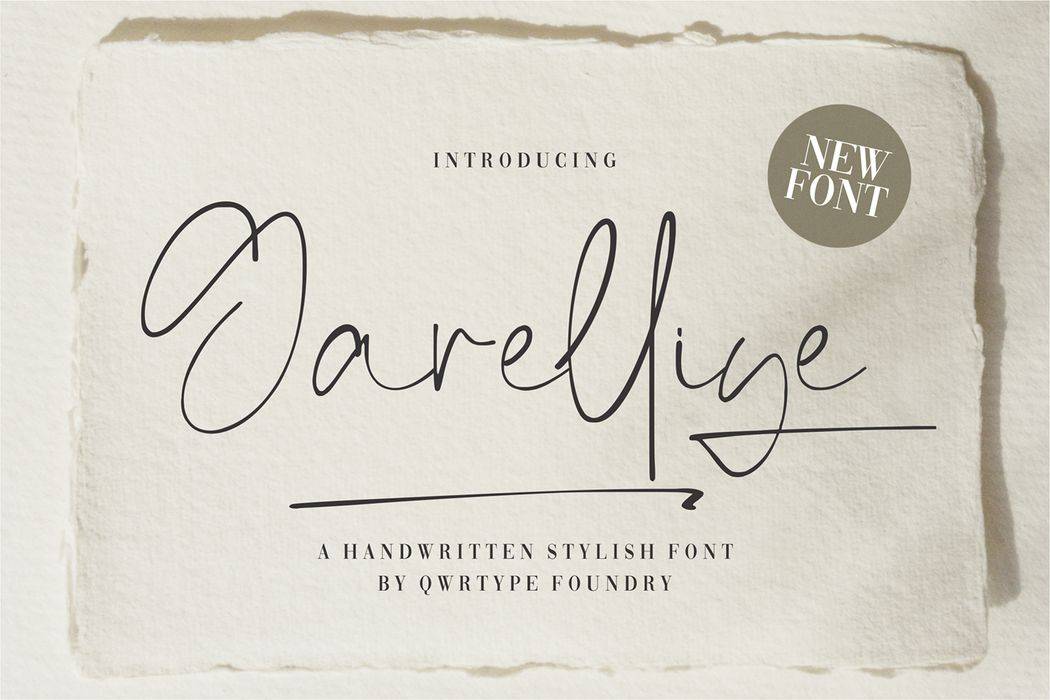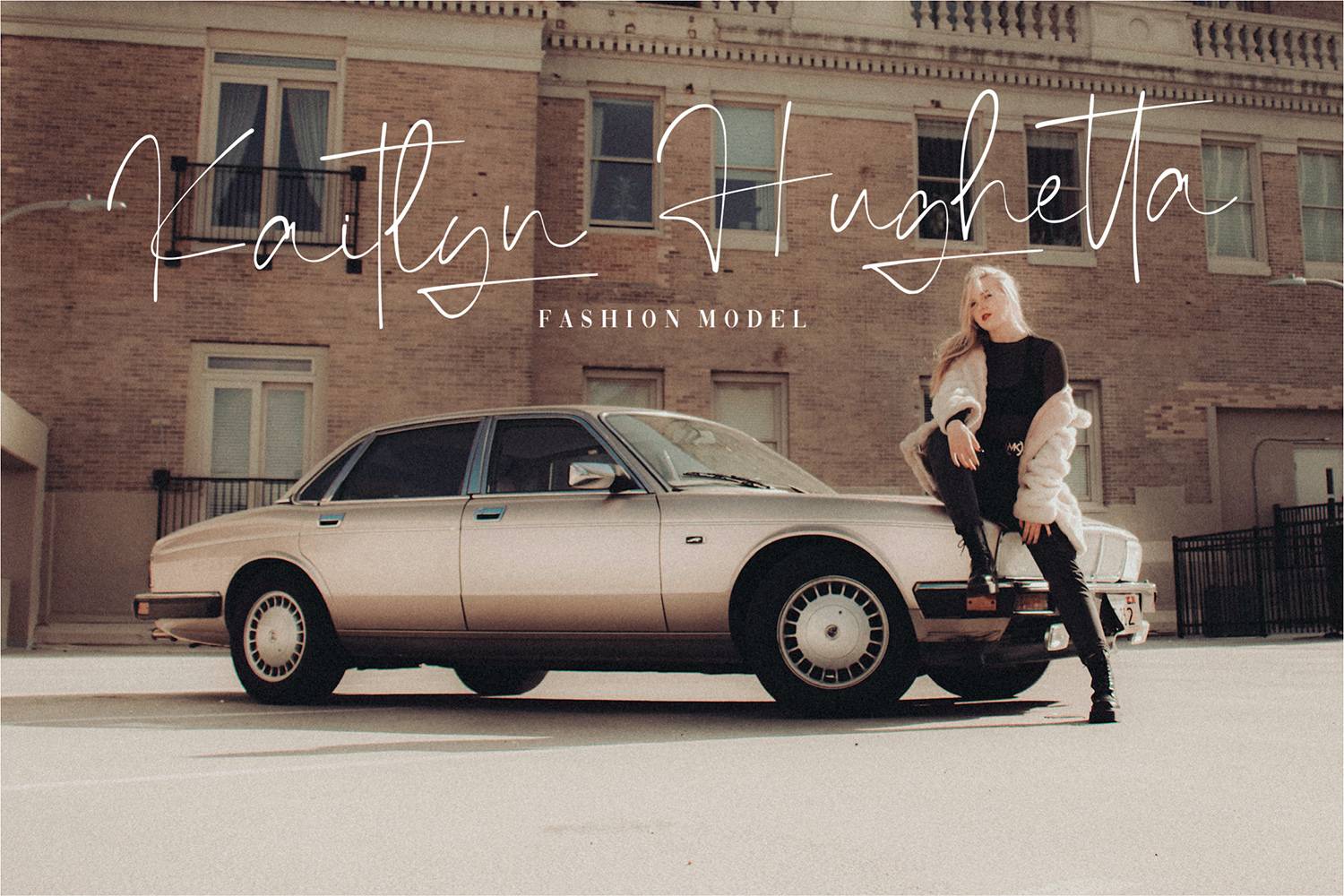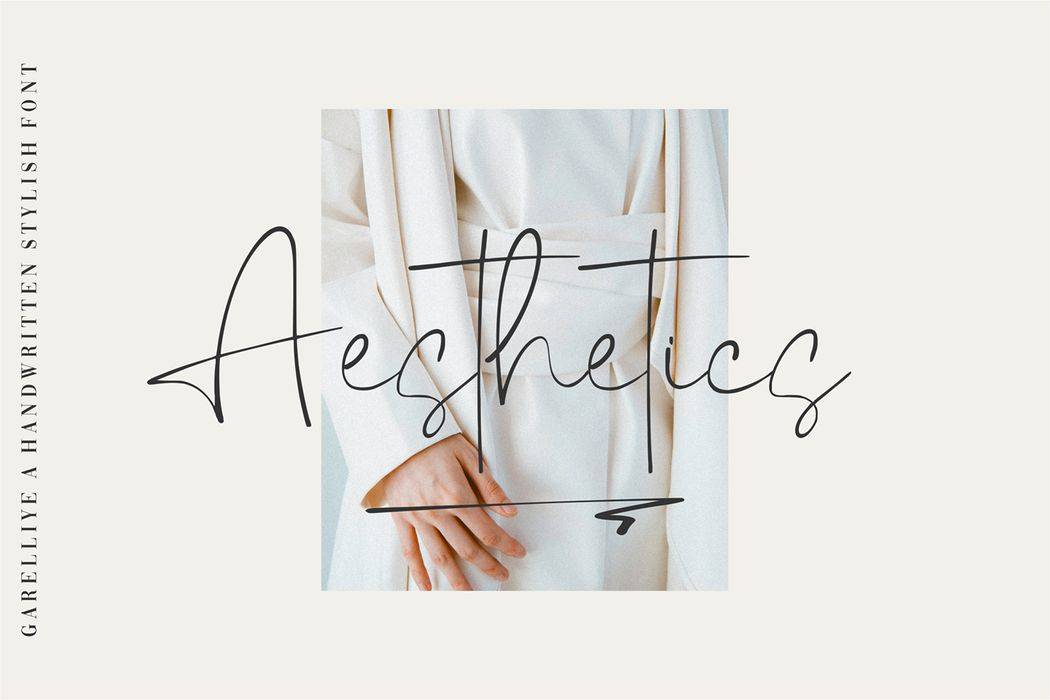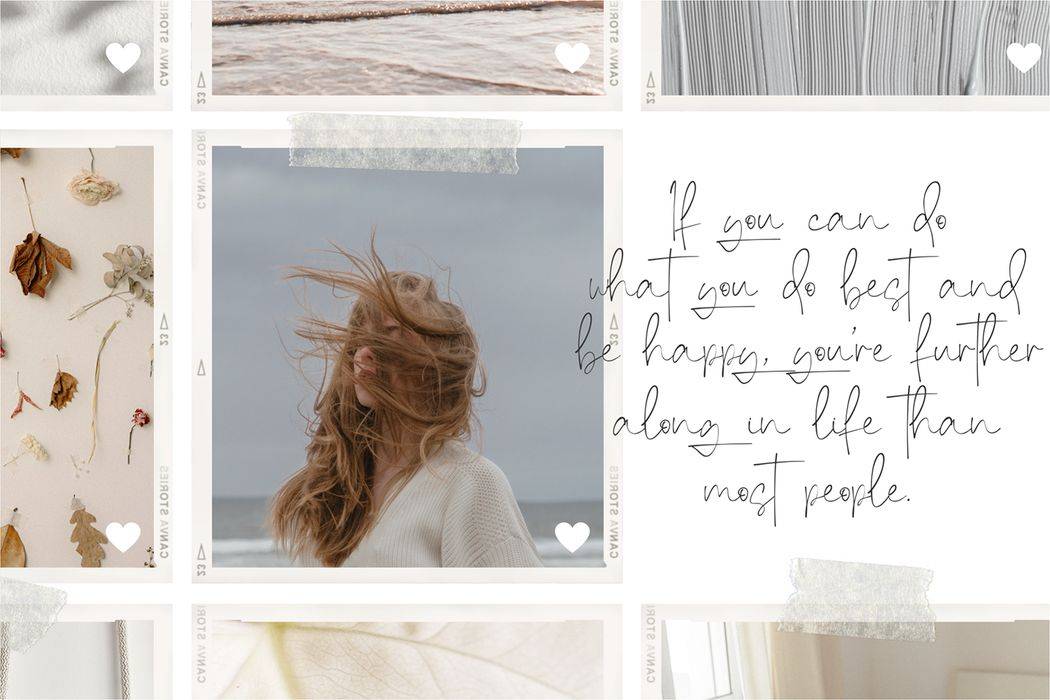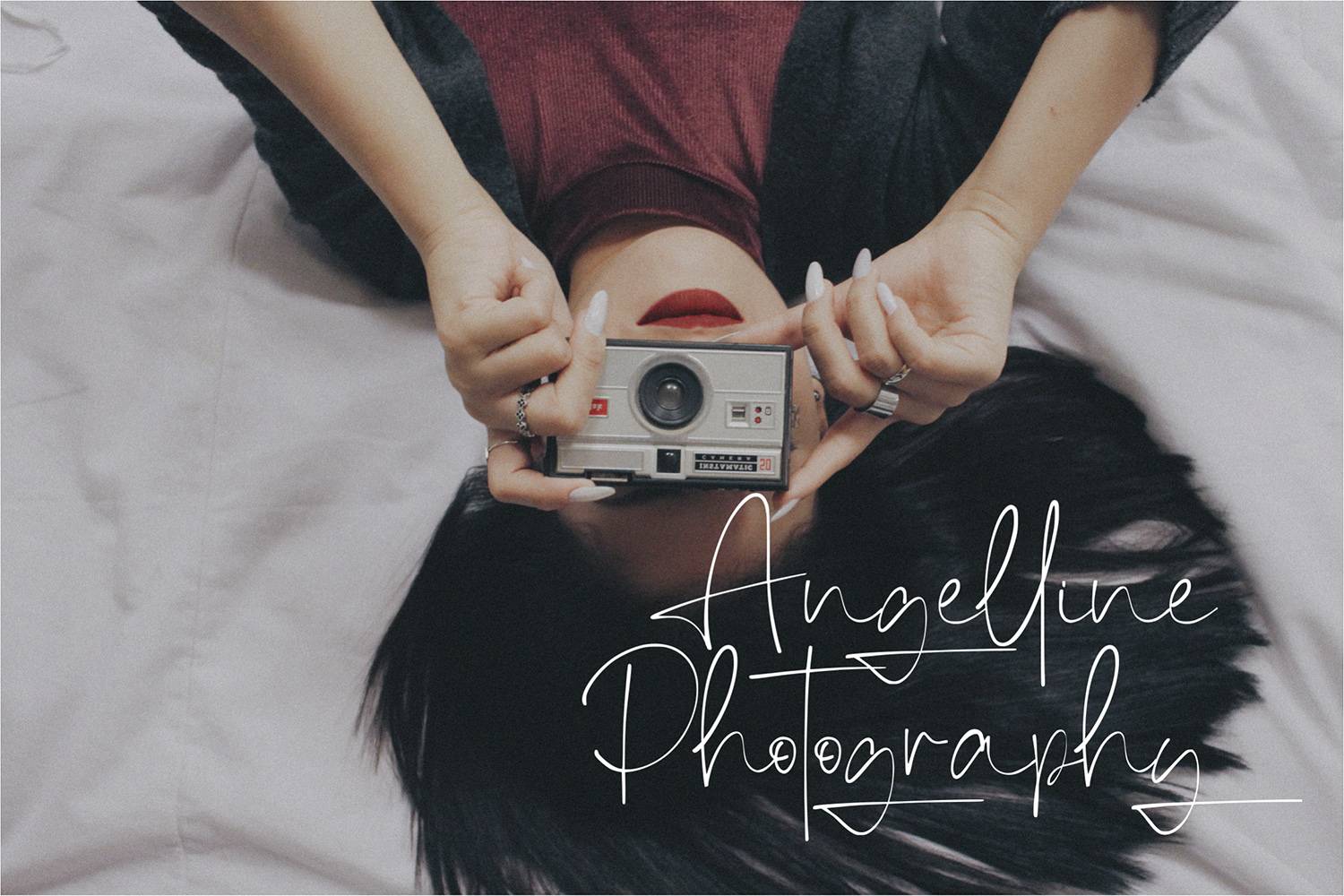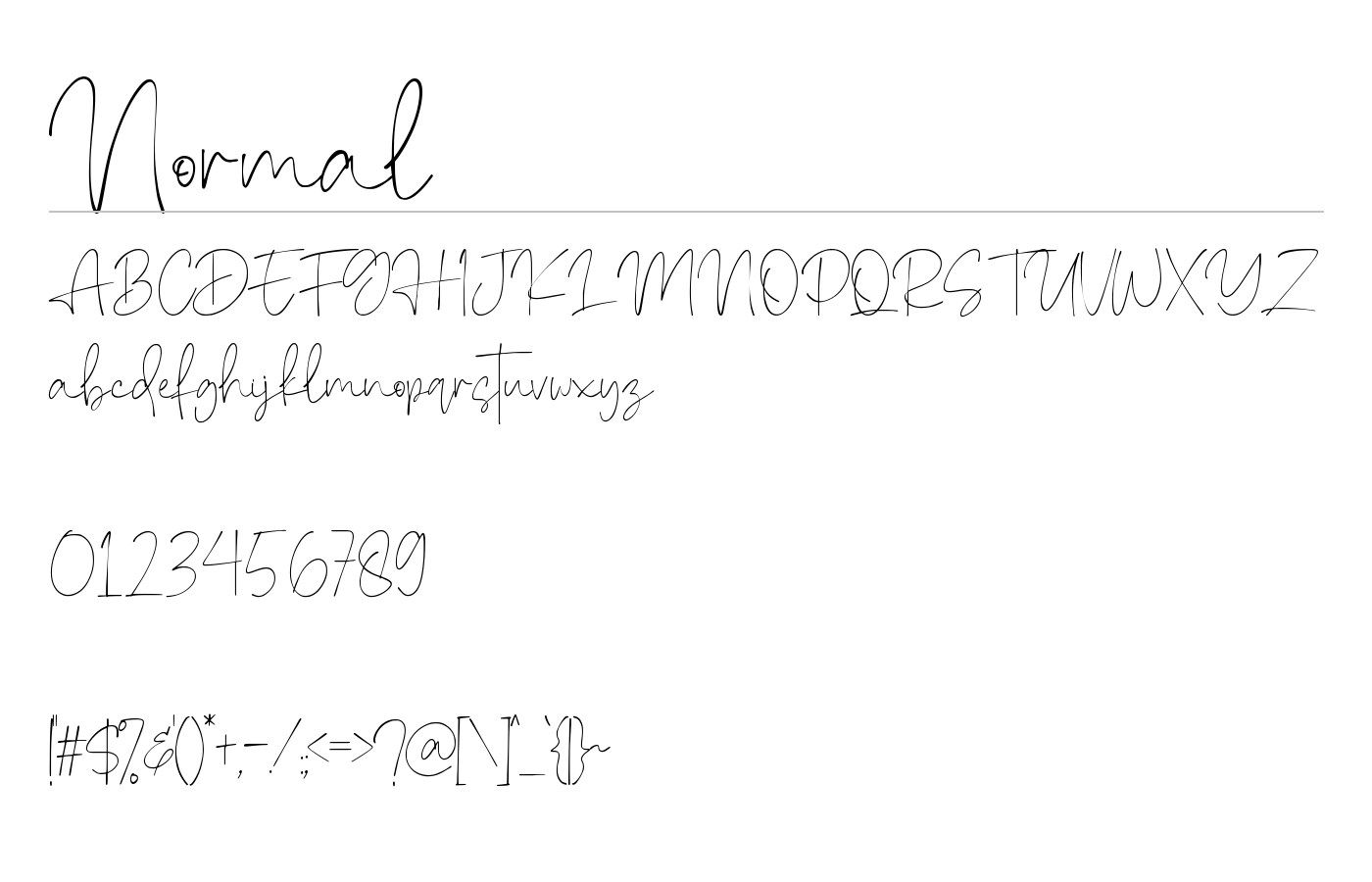
Garelliye is a delicate, handwritten script font with a light, airy feel created by its thin, flowing lines and slightly irregular letterforms. Its casual elegance makes it ideal for personal branding, invitations, and creative projects where a friendly, approachable touch is desired. This font works best in larger sizes for headlines or decorative text, bringing a sense of warmth and individuality to any design.
Garelliye Font